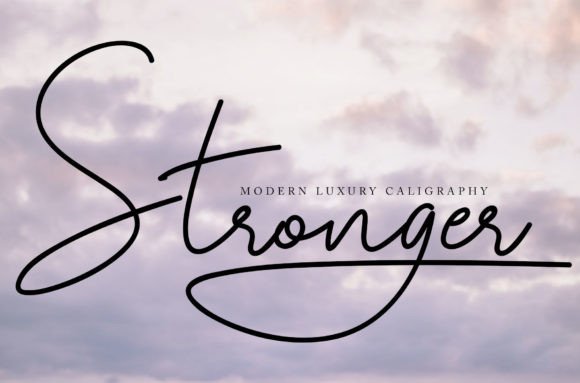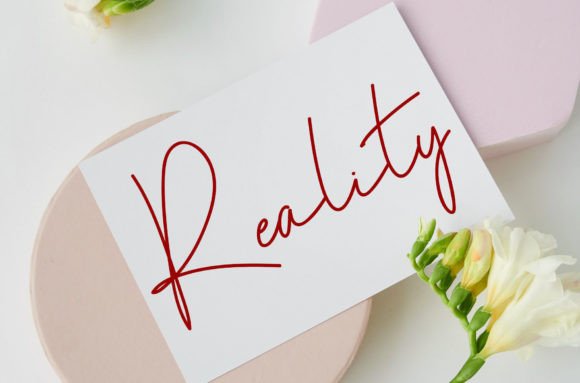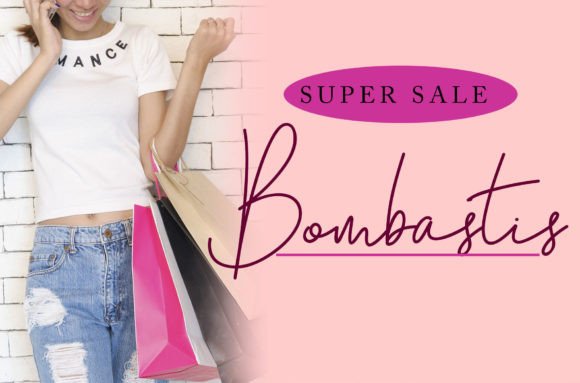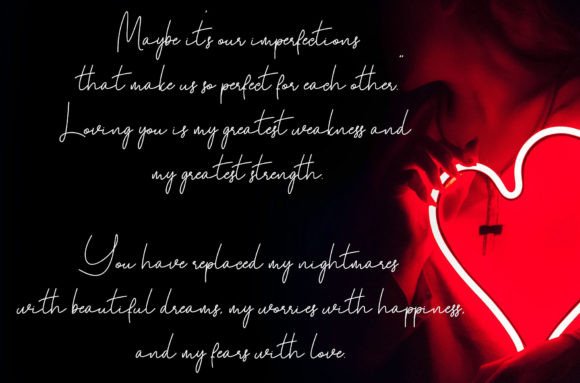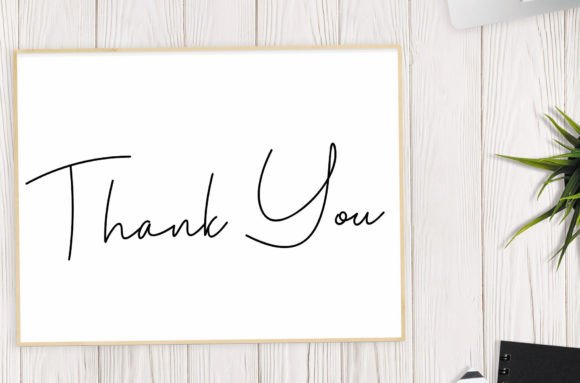
Stronger Font
About Stronger Font
Bold, Expressive, and Versatile
The Stronger font download offers a bold handwritten style that brings strength and personality to your designs. Crafted with confident strokes and smooth curves, this font instantly draws attention without being overpowering.
Great for Packaging, Branding & More
Stronger is perfect for many creative applications. Use it to make your design stand out on:
• Product packaging
• Logo designs and brand identity
• Wedding invitations and stationery
• Magazine headlines and editorials
• Social media posts and quote graphics
Designed to Stand Out Naturally
Despite its boldness, the Stronger font maintains a graceful balance, making it versatile across both casual and elegant settings. It’s highly readable and brings a hand-crafted warmth to digital and print projects alike.